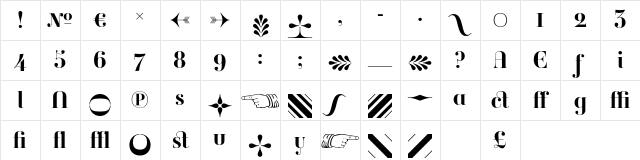
Ambroise Alternates Demi
Style: Alternates Demi
Design Context for Ambroise
Ambroise is a composed and adaptable typeface that performs quietly and consistently across a wide range of design contexts.